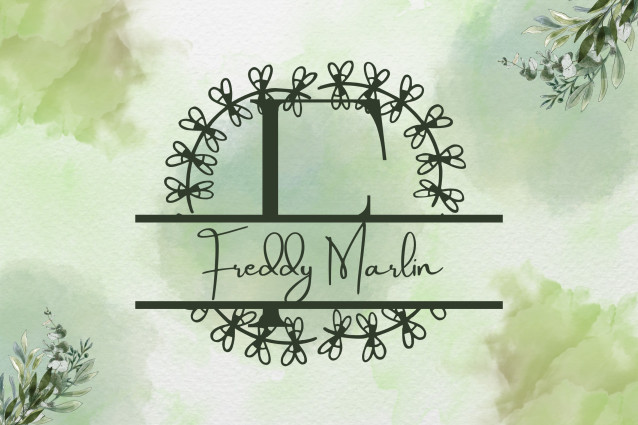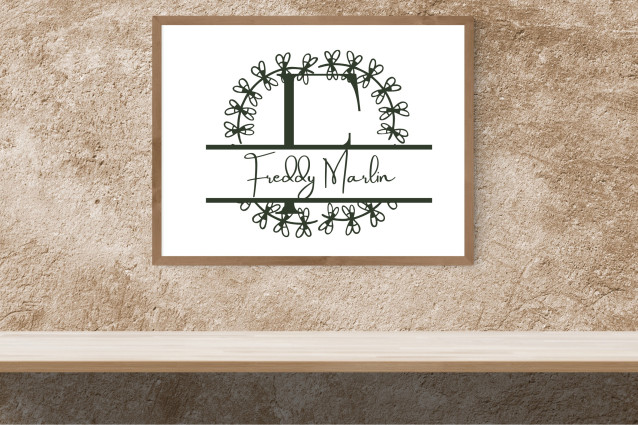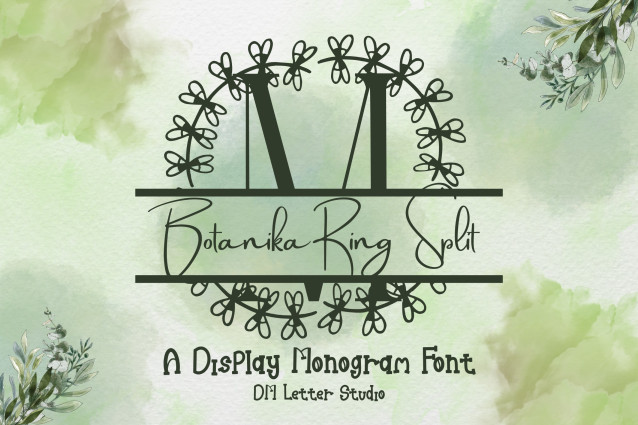
Botanika Ring Split Monogram Font
Botanika Ring Split Monogram Font is a stylish and modern split-letter font framed by a delicate botanical wreath. Designed to blend elegance and personalization, each uppercase letter features a clear split space—perfect for inserting names, dates, or short messages. Ideal for wedding decor, branding, crafting, or personalized gifts, this font offers natural charm with functional design.